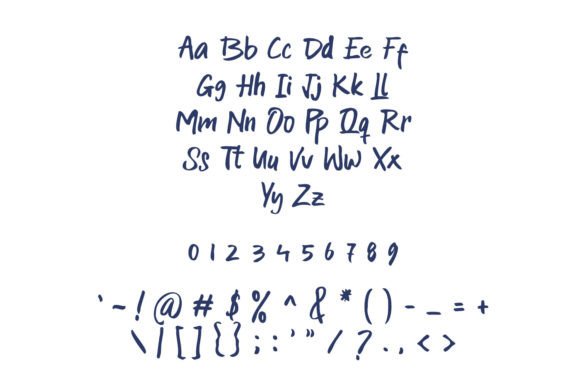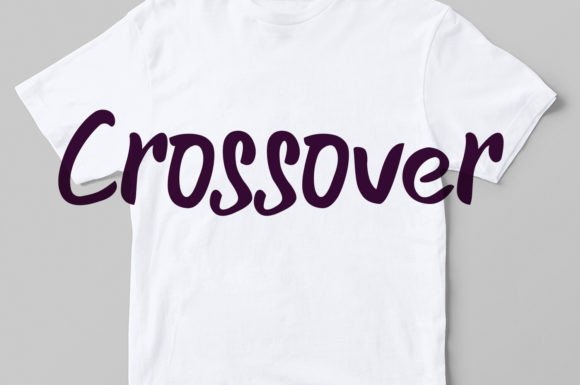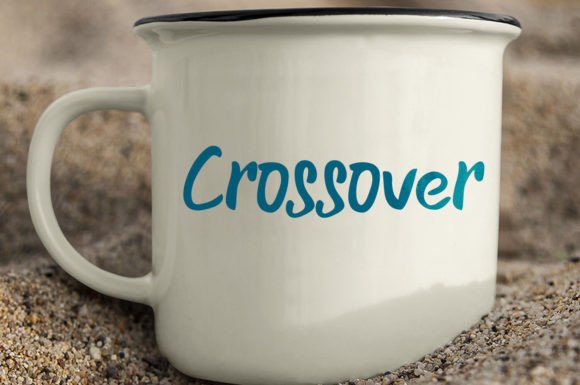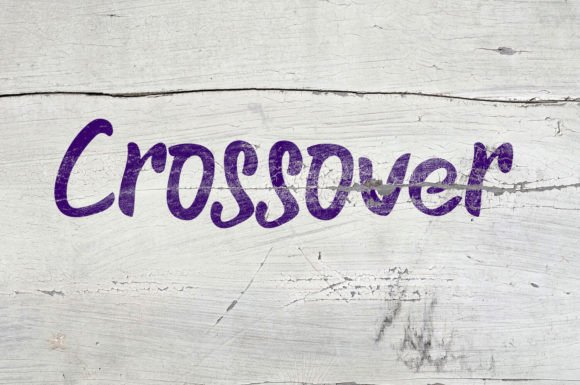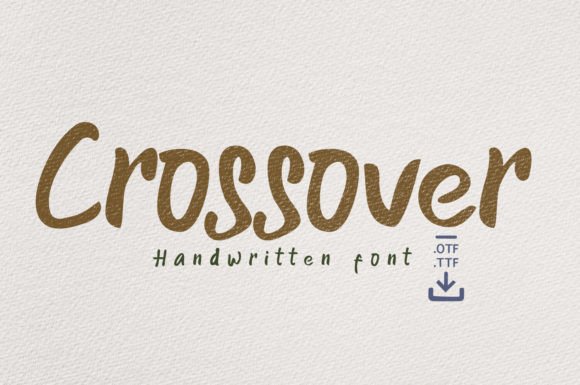
Crossover Font: Adding a Fun and Friendly Touch to Your Designs
Are you looking for a font that can add a playful and casual vibe to your designs? Look no further than the Crossover Font. This marker handwritten font is perfect for creative projects, offering a unique and energetic feel that is sure to capture the attention of your audience. In this article, we’ll explore the features and benefits of the Crossover Font, and how it can elevate your designs to the next level.
What is Crossover Font?
Crossover Font is a type of marker handwritten font that mimics the look of writing with a thick pen. Its bold, casual, and easy-to-read letters make it an ideal choice for designs that require a fun and friendly feel. The font’s unique texture and imperfections give it a human touch, making it perfect for creative projects such as posters, cards, logos, and more.
Key Features of Crossover Font
• Bold and Casual Letters: The Crossover Font features bold and casual letters that are easy to read, making it perfect for headlines, titles, and short paragraphs of text.
• Marker Handwritten Style: The font’s marker handwritten style gives it a unique and energetic feel, making it ideal for creative designs that require a playful touch.
• Fun and Friendly Feel: The Crossover Font is designed to add a fun and friendly feel to your designs, making it perfect for projects that require a lighthearted and approachable tone.
• Easy to Read: Despite its bold and casual style, the Crossover Font is easy to read, making it perfect for designs that require a clear and concise message.
Benefits of Using Crossover Font
So, why should you use the Crossover Font in your designs? Here are just a few benefits of using this versatile font:
• Adds a Playful Touch: The Crossover Font is perfect for adding a playful touch to your designs, making it ideal for creative projects such as posters, cards, and logos.
• Versatile: The font’s bold and casual style makes it versatile enough to use in a variety of designs, from fun and playful to more serious and professional.
• Easy to Pair with Other Fonts: The Crossover Font is easy to pair with other fonts, making it perfect for designs that require a combination of fonts.
• Supports Multiple Languages: The font supports multiple languages, making it a great choice for designers who work with international clients.
Creative Uses for Crossover Font
The Crossover Font is a versatile font that can be used in a variety of creative projects. Here are just a few ideas to get you started:
• Posters and Flyers: Use the Crossover Font to create eye-catching posters and flyers that grab the attention of your audience.
• Cards and Invitations: Add a playful touch to your cards and invitations with the Crossover Font.
• Logos and Branding: Use the Crossover Font to create a fun and friendly logo that reflects your brand’s personality.
• Social Media Graphics: Use the Crossover Font to create engaging social media graphics that stand out from the crowd.
Tips for Using Crossover Font
Here are a few tips for using the Crossover Font in your designs:
• Use it for Headlines and Titles: The Crossover Font is perfect for headlines and titles, where its bold and casual style can really make an impact.
• Pair it with Other Fonts: Don’t be afraid to pair the Crossover Font with other fonts to create a unique and interesting combination.
• Experiment with Colors: The Crossover Font looks great in a variety of colors, so don’t be afraid to experiment and find the perfect color for your design.
The Crossover Font is a versatile and fun font that can add a playful touch to your designs. Its bold, casual, and easy-to-read letters make it perfect for creative projects such as posters, cards, logos, and more. With its unique texture and imperfections, the Crossover Font is sure to capture the attention of your audience and leave a lasting impression. So why not give it a try and see how it can elevate your designs to the next level?